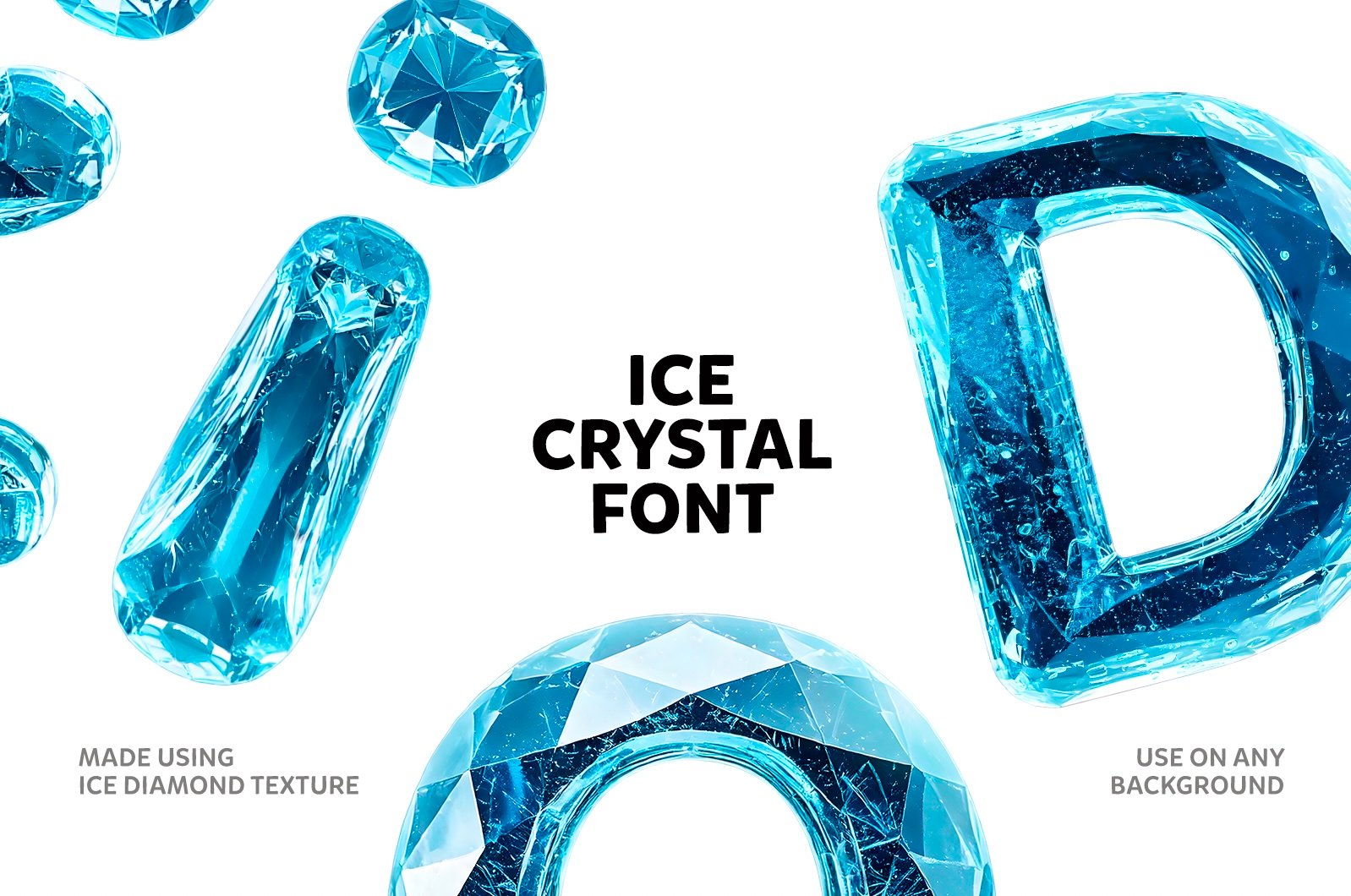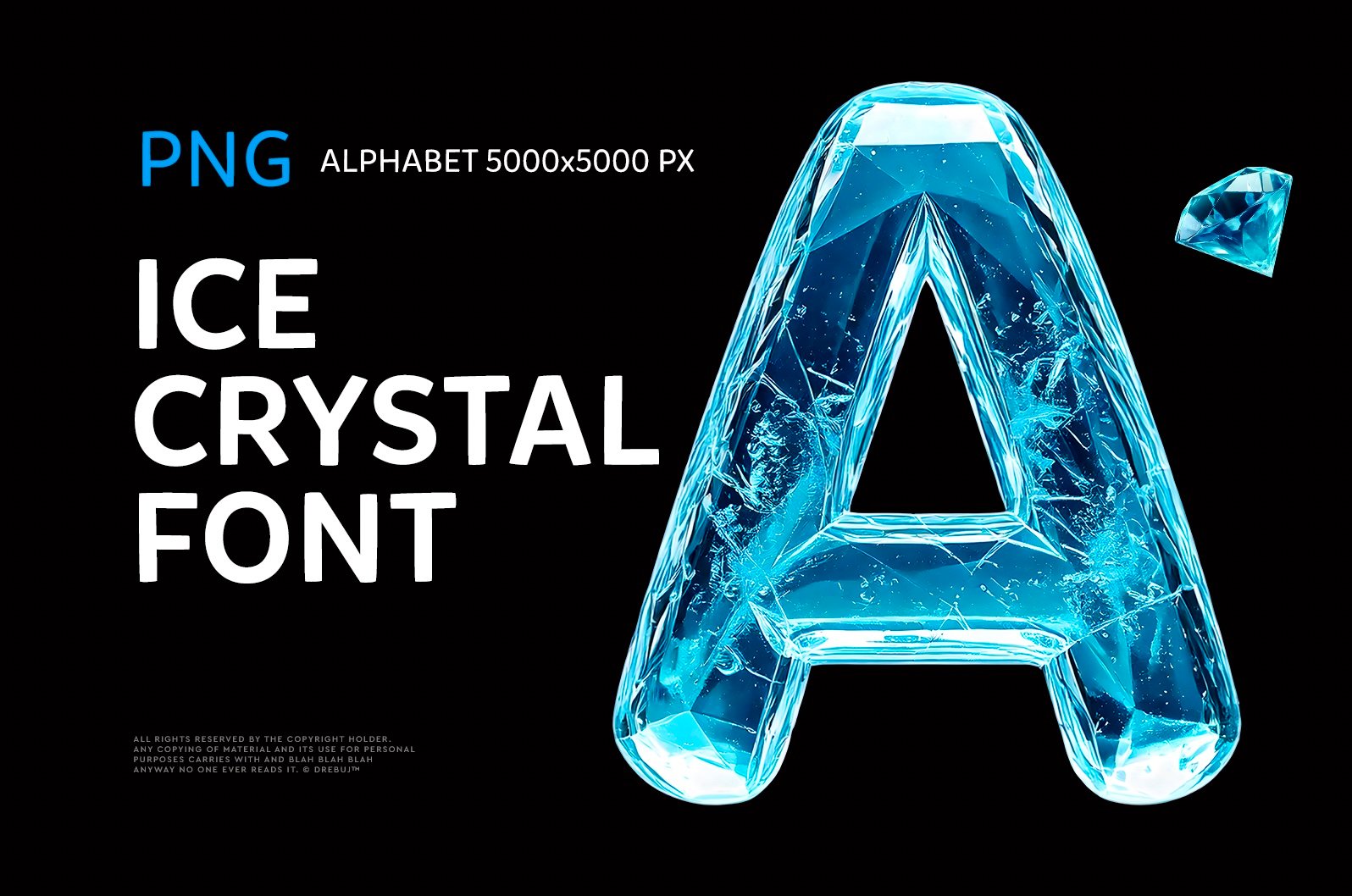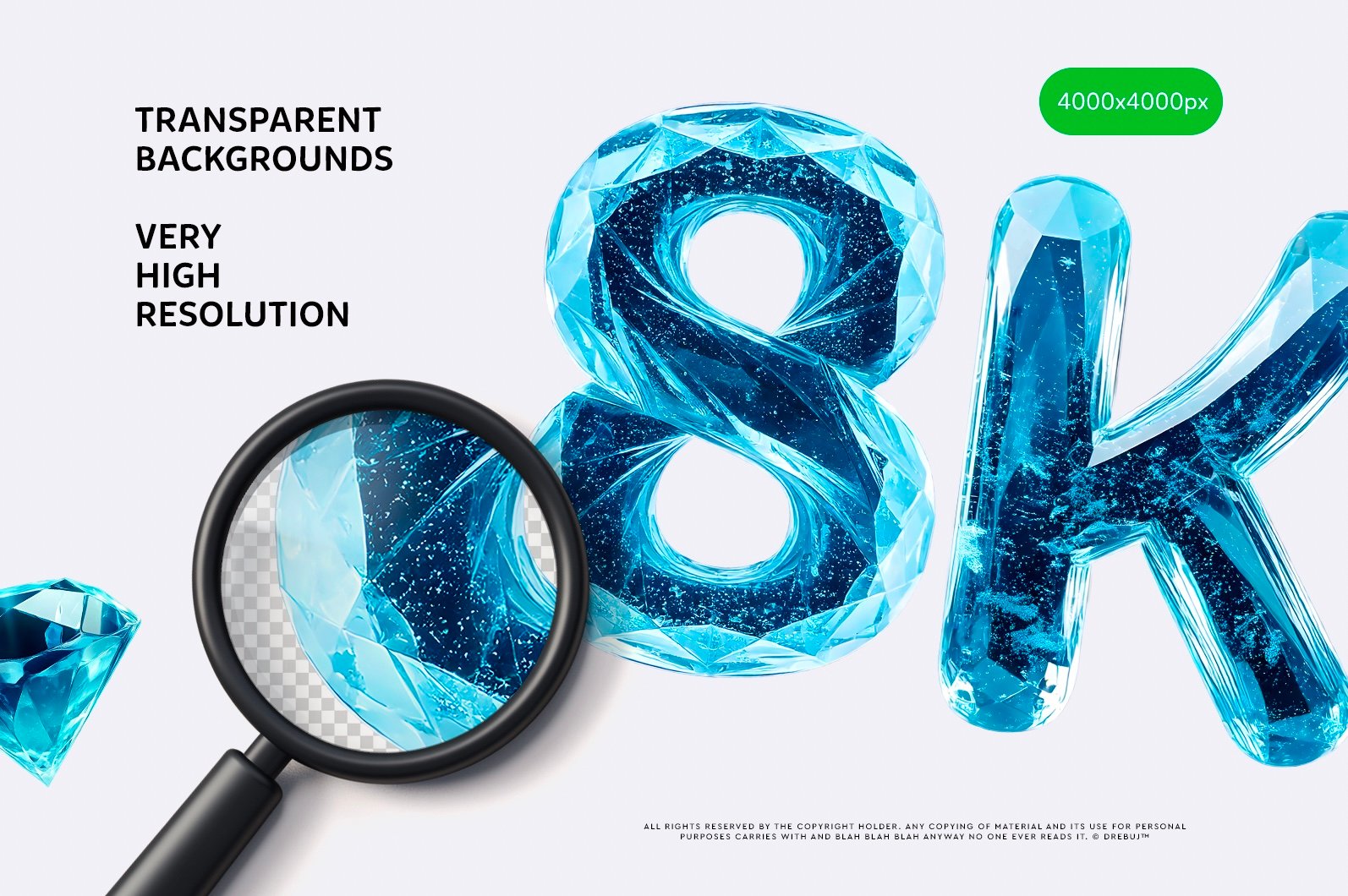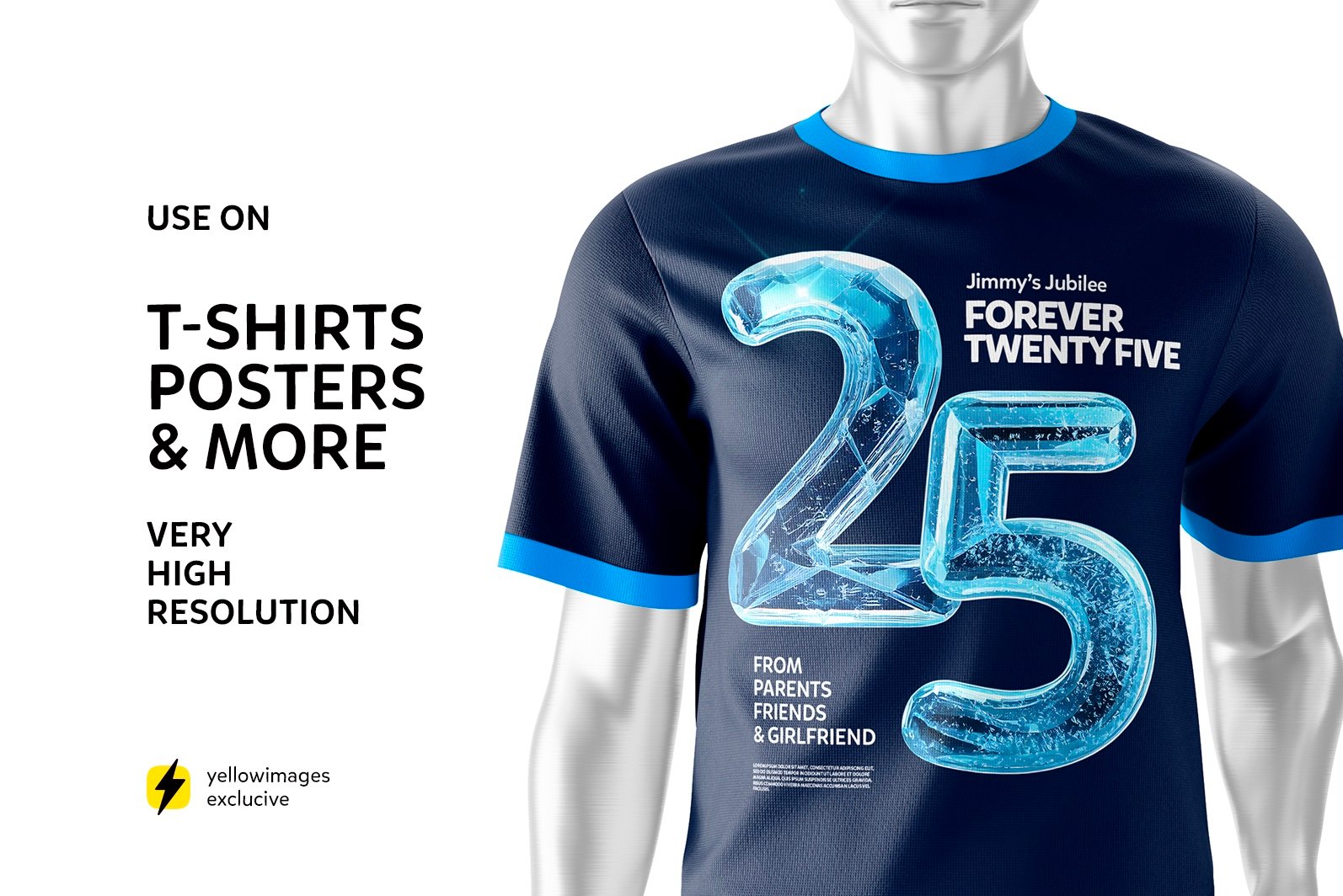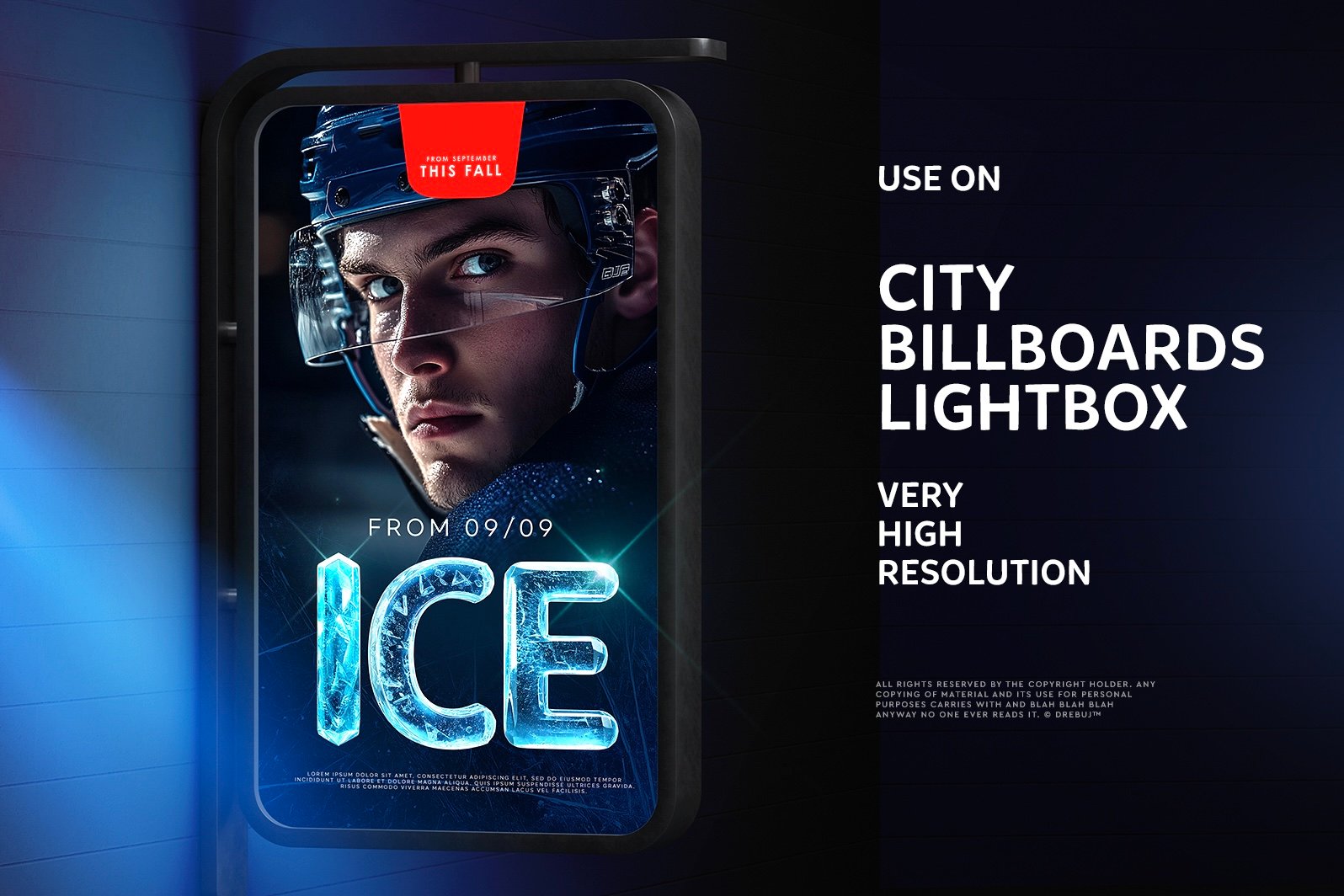
Ice Crystal Font: Geometric 3D Alphabet PNG
An entire alphabet of Ice Crystal Diamond letters with transparent background.
THIS IS NOT A FONT. This is a very high-quality 3d PNG font of Iced Crystal texture letters.
Step into a world of winter magic with Ice Crystal Font, a stunning display font where each letter shimmers like a crystal of ice and diamond. Designed to capture the beauty of frozen elegance, this font blends the sharp clarity of gemstones with the soft glimmer of frost.
Perfect for holiday campaigns, luxury branding, frozen-themed events, or anything that needs a touch of arctic sparkle. Whether you're designing posters, logos, packaging, or headlines – Ice Crystal turns every word into a visual masterpiece.
✨ Key Features:
Icy crystal texture on every glyph
High-resolution, 3D-rendered letterforms
Ideal for winter, fantasy, and luxury designs
Let your typography shine like a snowflake under moonlight ❄️?